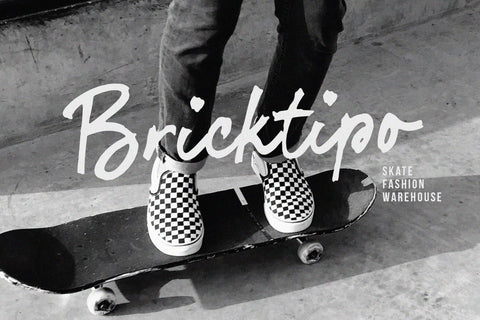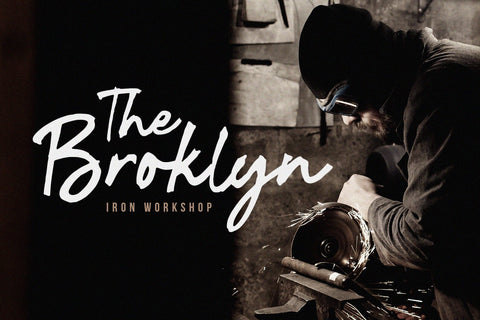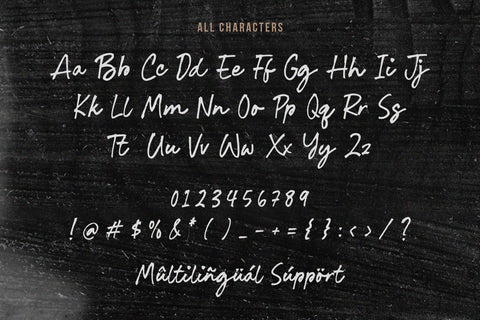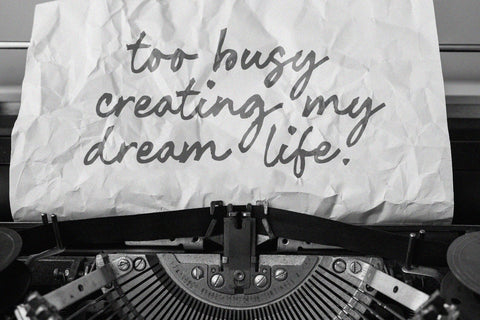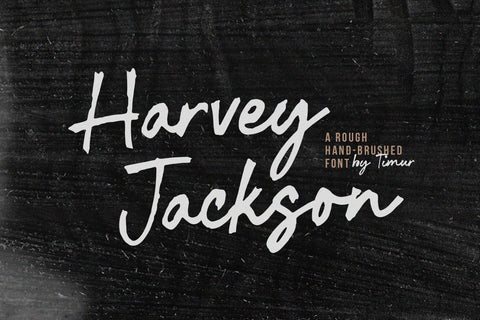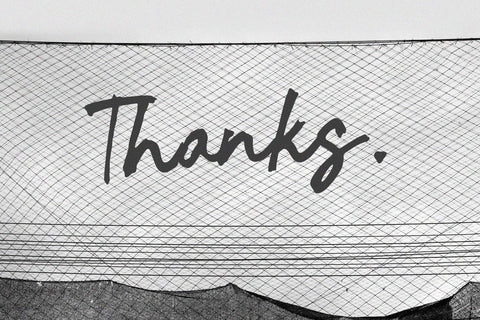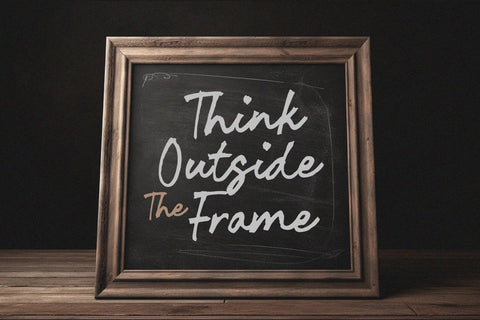
Harvey Jackson - Rough Handbrushed Font
Harvey Jackson is a Rough Handbrushed Font
This font is a dynamic rough handbrushed font that exudes a raw, artistic flair. With its bold, uneven strokes and textured edges, it captures the essence of spontaneous creativity and rugged charm. Ideal for projects that demand a touch, Harvey Jackson adds a distinctive, handcrafted feel to everything from logos and posters to social media graphics and branding materials. Its expressive style makes it a standout choice for conveying a sense of authenticity and bold character.
Harvey Jackson Font also supports multilingualism